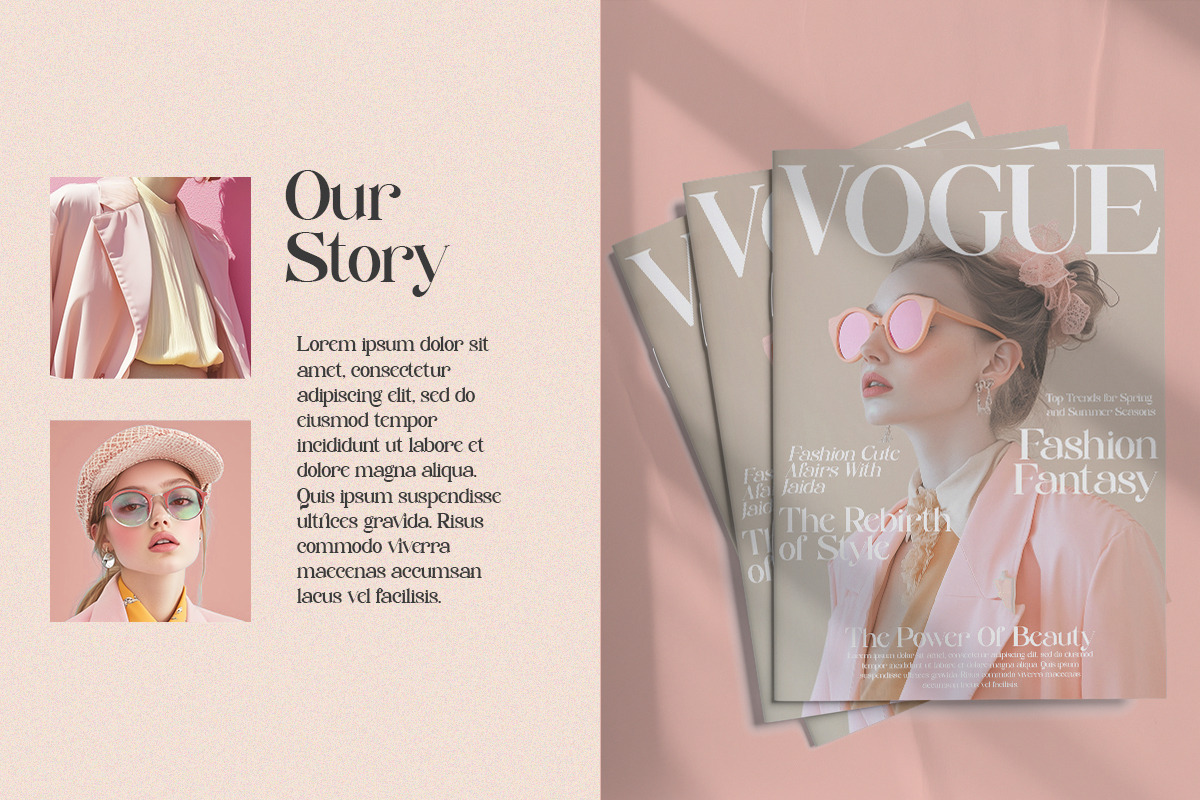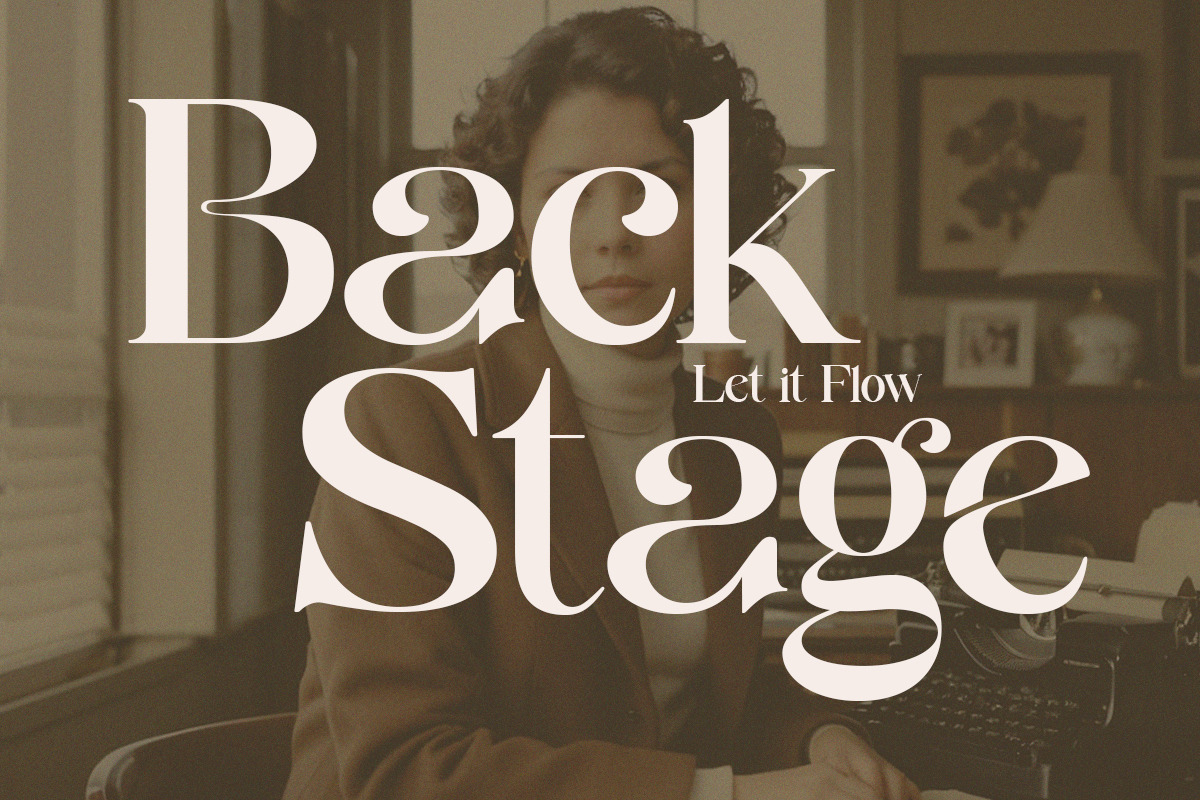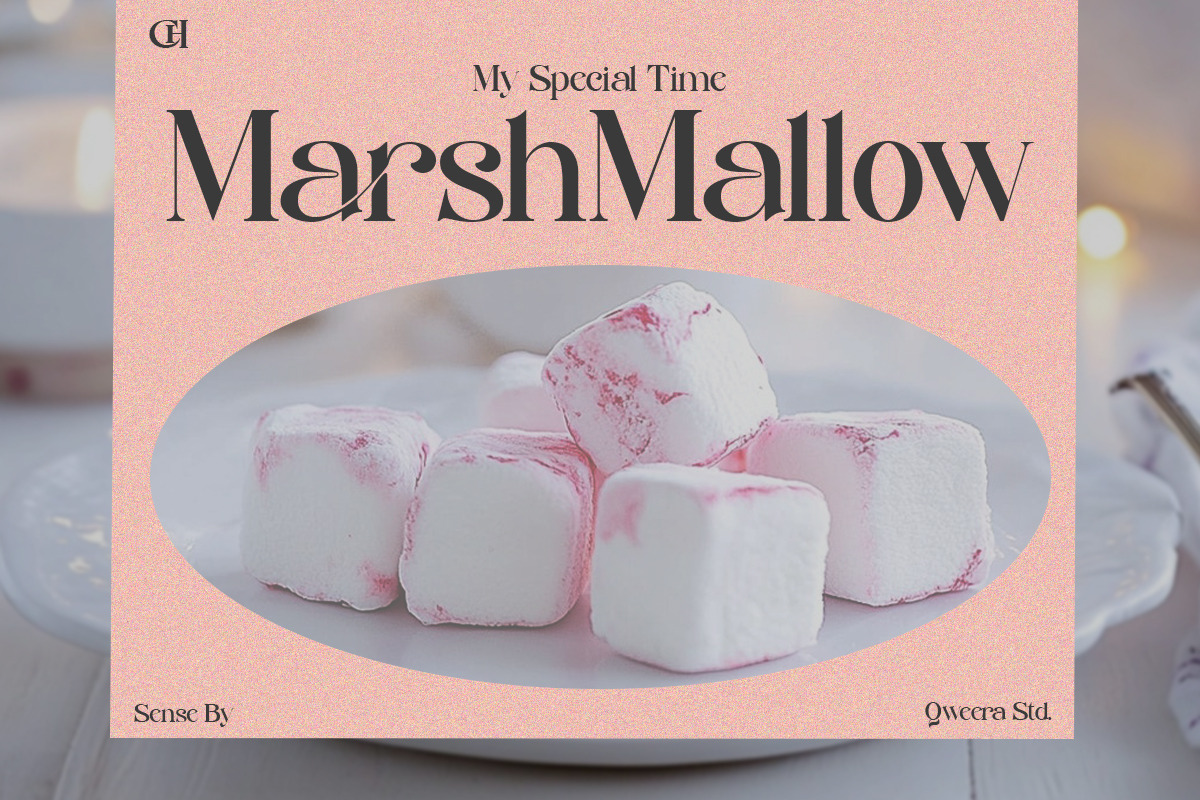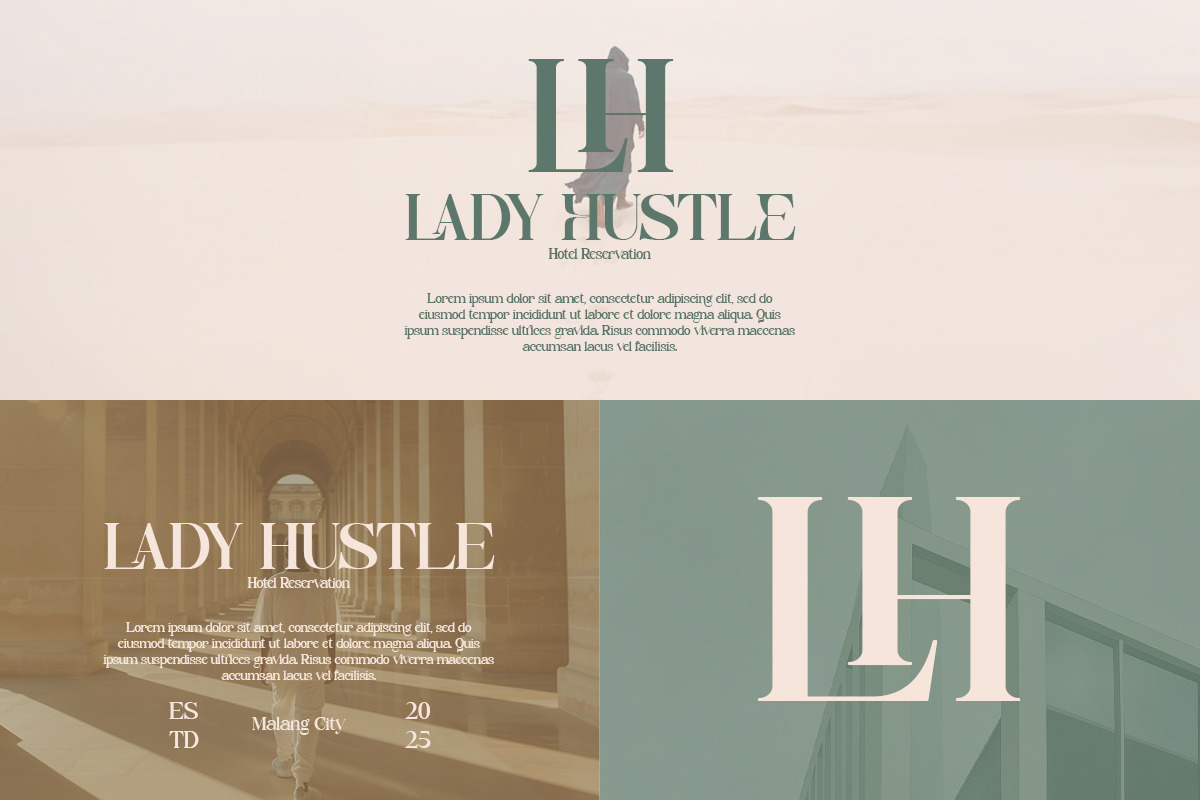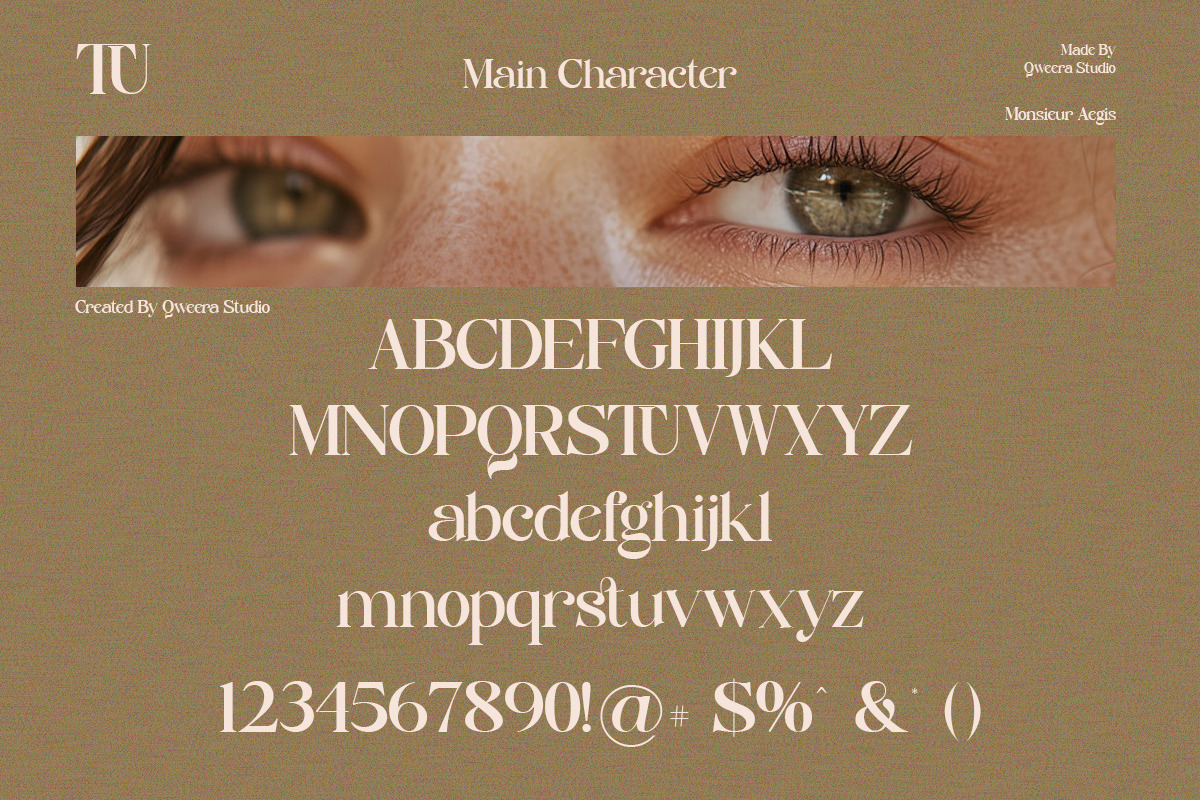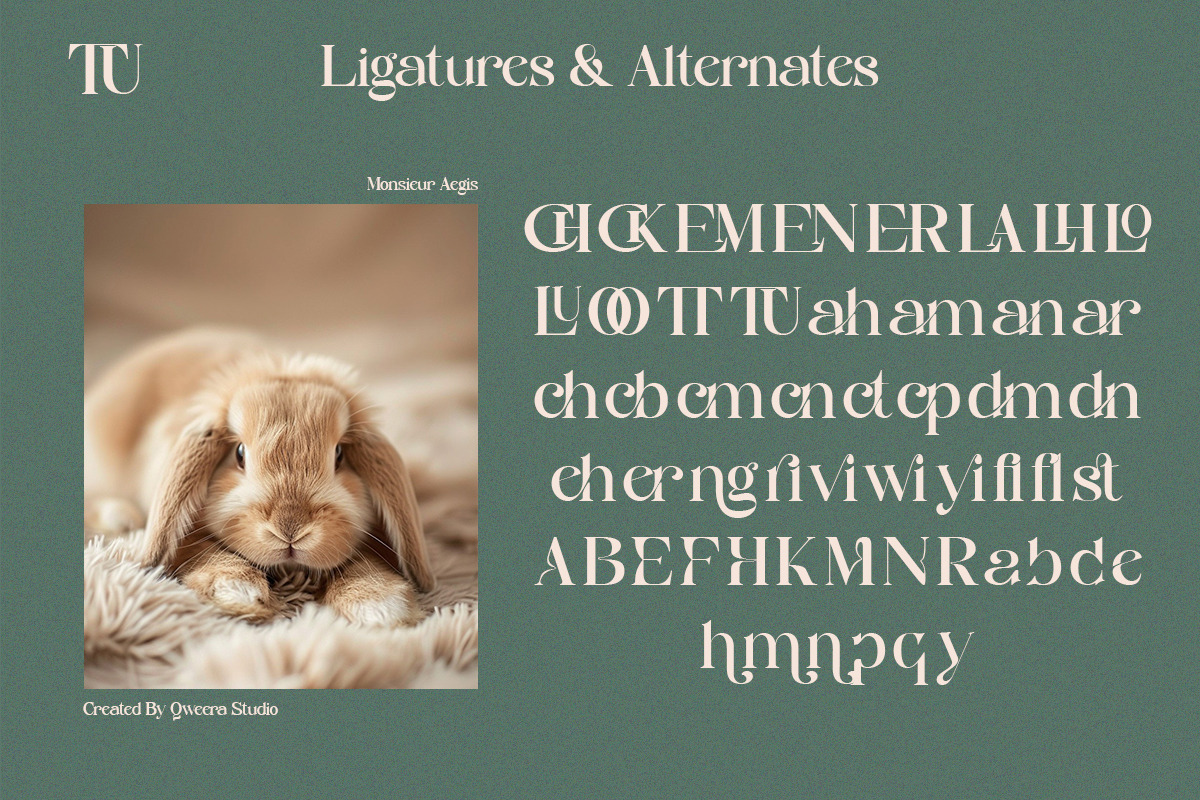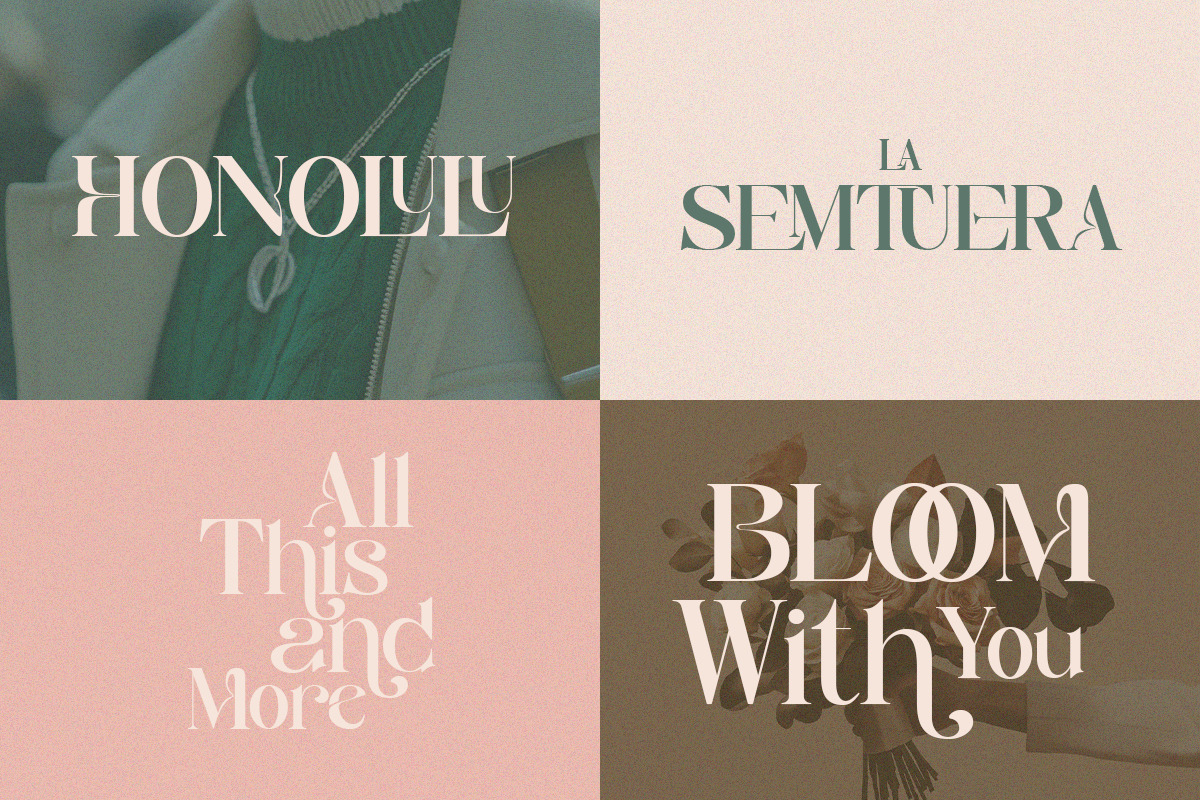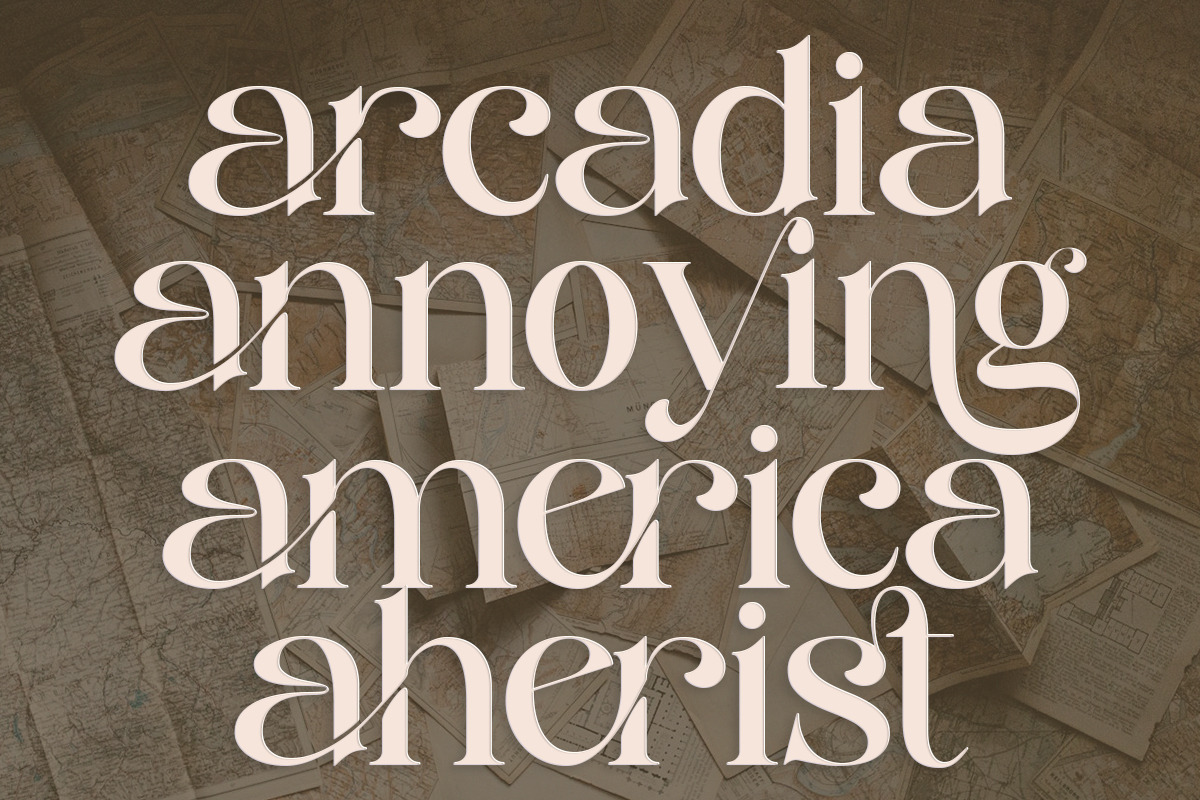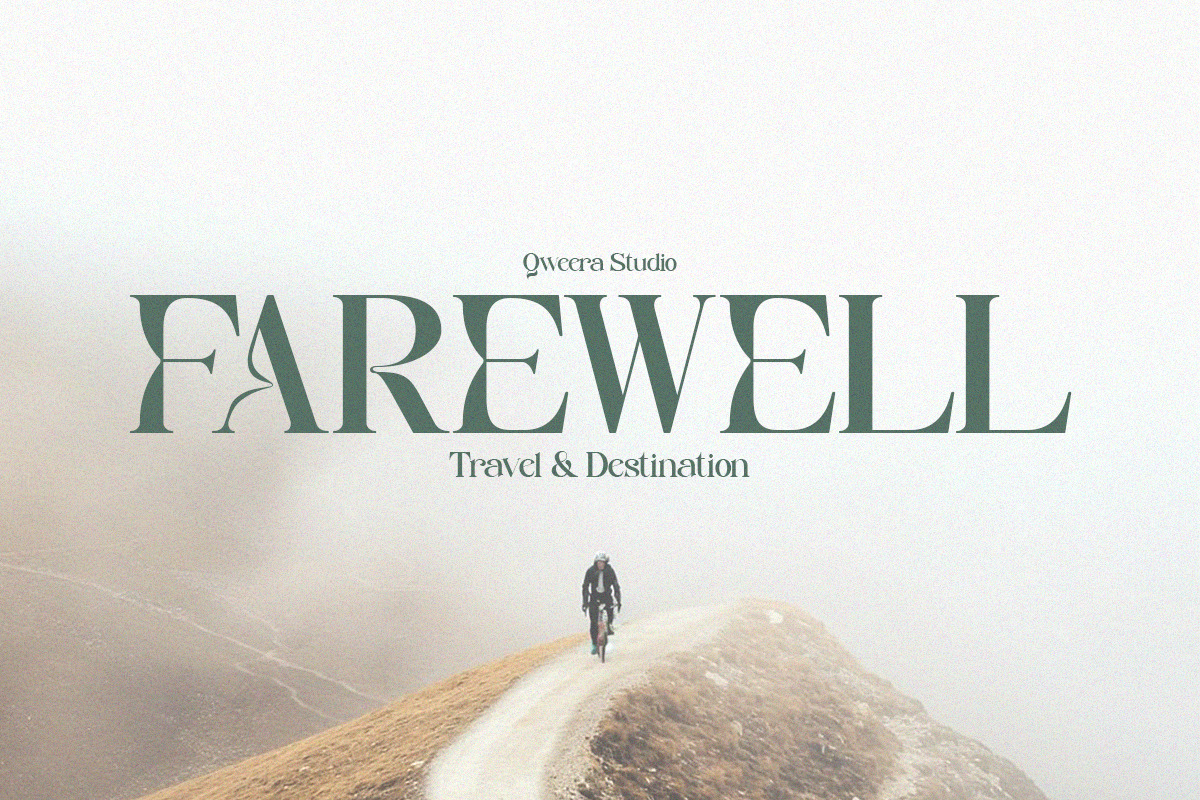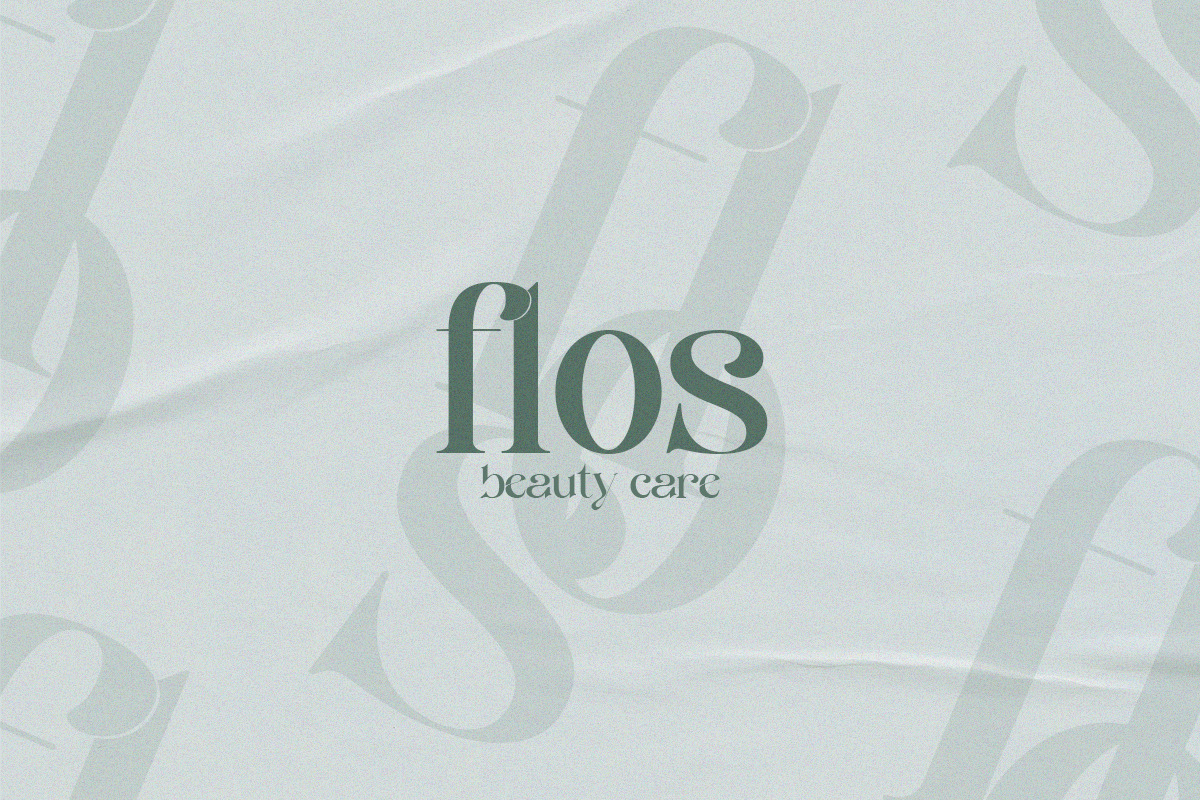
Monsieur Aegis - Modern Luxury Serif
Monsieur Aegis – Modern Luxury Serif Font ✨
Monsieur Aegis is a modern luxury serif font designed to bring an elegant and exclusive touch to any project. With its unique letterforms and refined details, this font adds a sophisticated feel, perfect for various professional design needs.
✦ Key Features:
- Alternates & Ligatures – Offers flexibility for more creative typography.
- Luxury & Modern Design – Ideal for projects that demand a premium touch.
- Easy to Use – Perfect for both digital and print design applications.
✦ Perfect for:
- Branding & Logos – Create an exclusive and high-class brand identity.
- Posters & Magazines – Deliver a modern and professional editorial look.
- Print Design – Ideal for business cards, invitations, packaging, and more.
- Opentype features ( ligature, alternate )